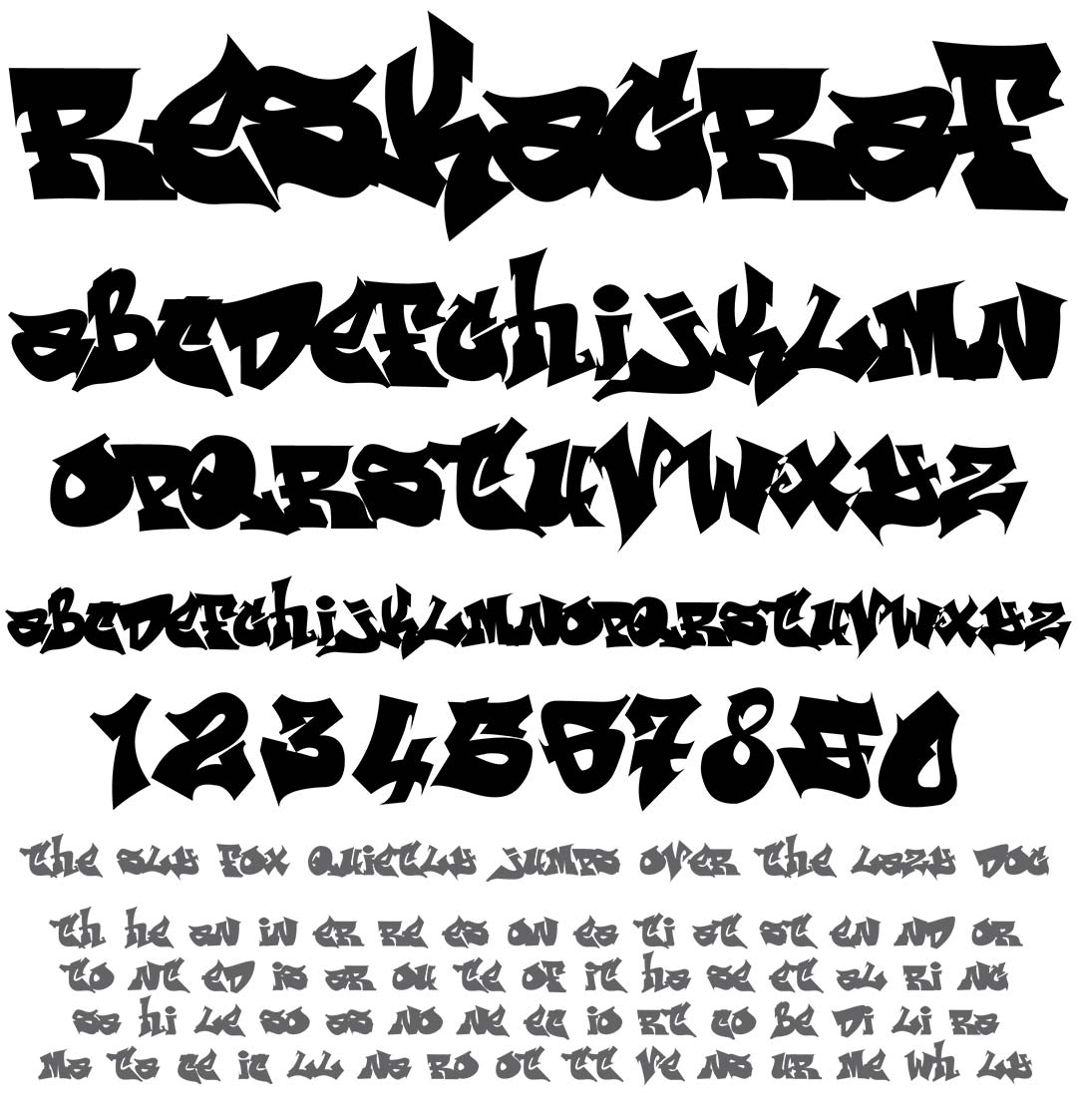
ReskaGraf
ReskaGraf Graffiti Alphabet
ReskaGraf Graffiti Font Family
This font was created by a Hip-Hop DJ & has the perfect look for fliers, posters & other event graphics, anything old-school. It has a classic graffiti mix of upper & lowercase letters. This is a fill font it works well with outlines & 3D effects